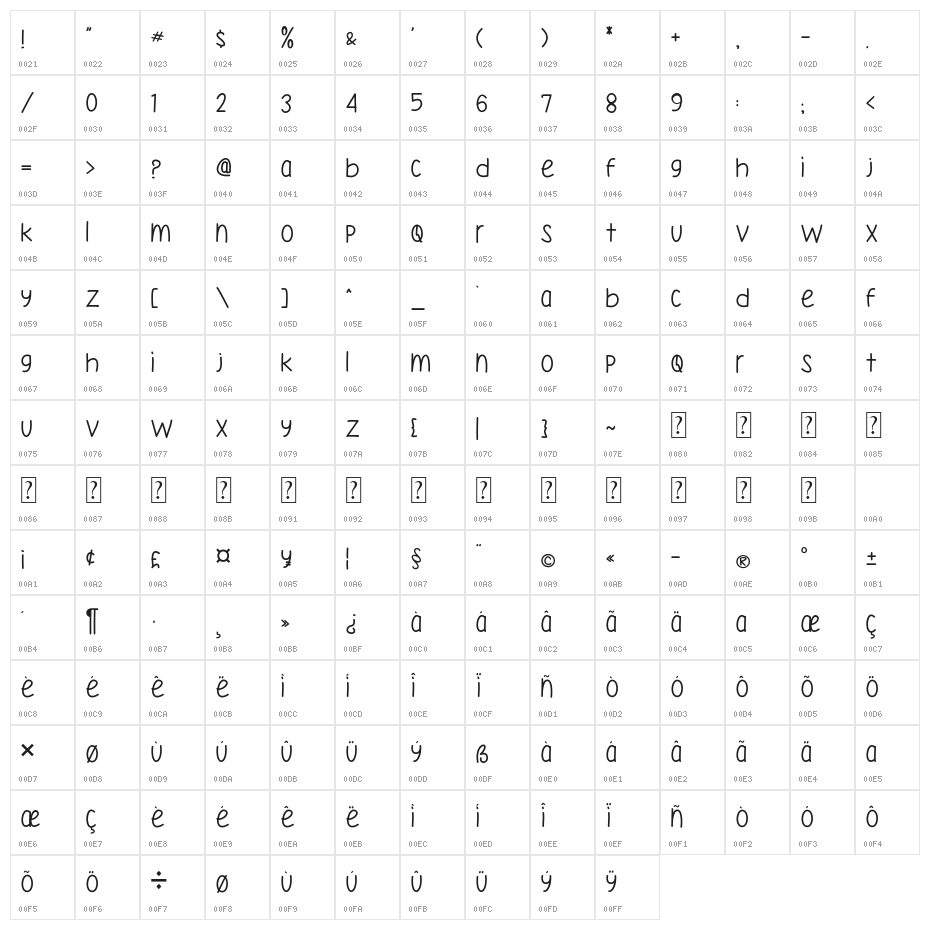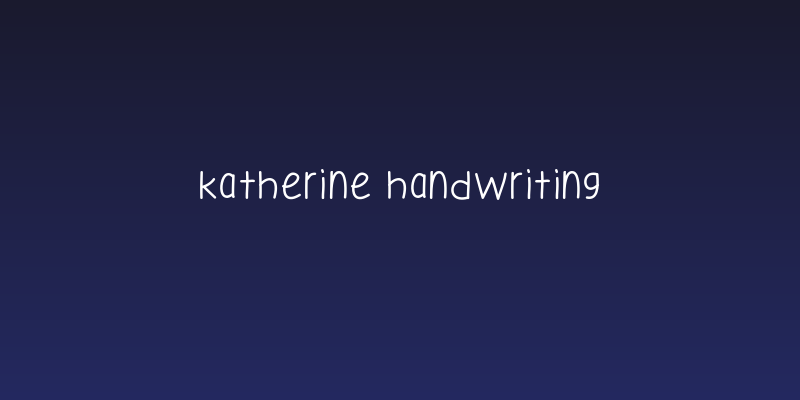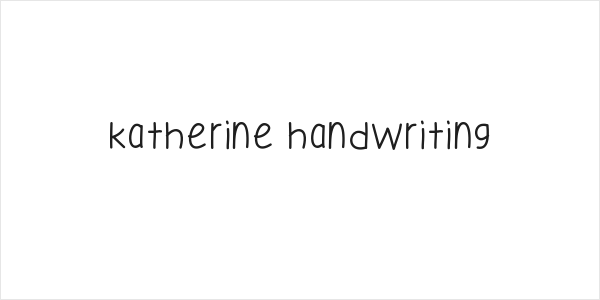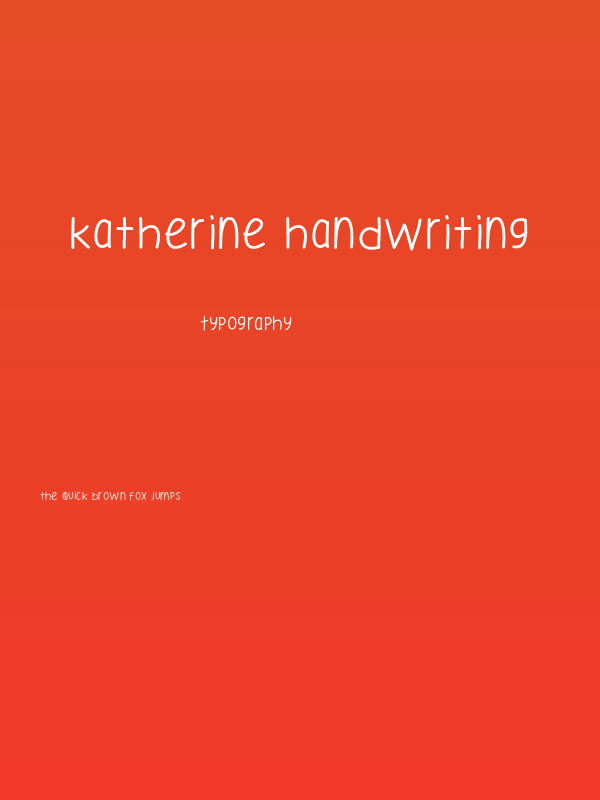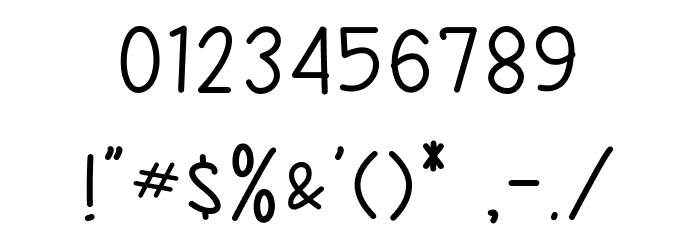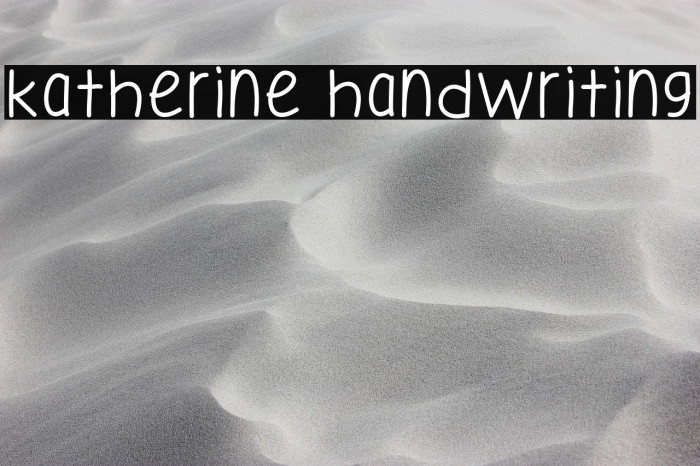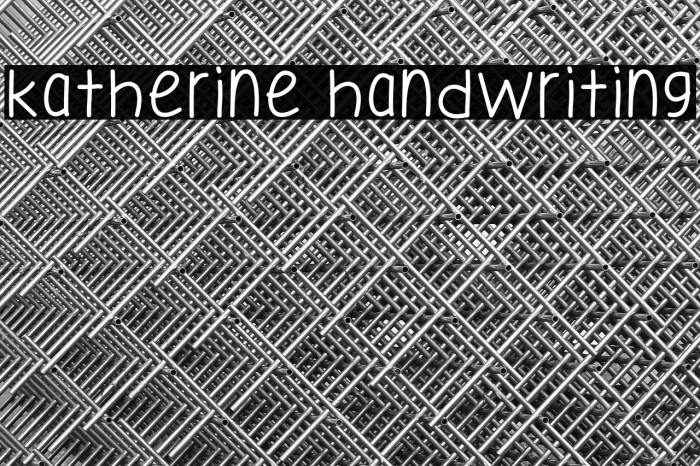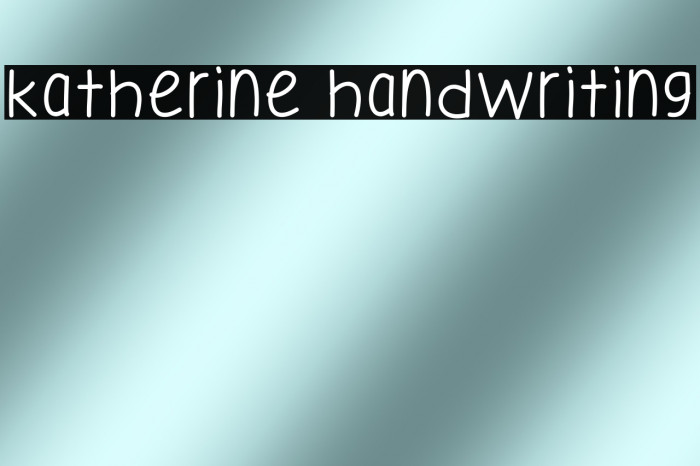
Katherine Handwriting Font
Katherine Handwriting Description
This font features a playful and casual handwritten style, characterized by its rounded and slightly irregular letterforms. The strokes are consistent in thickness, giving it a uniform appearance that enhances readability. The letters have a friendly and approachable feel, making it suitable for informal and creative projects. The numbers and special characters maintain the same whimsical style, ensuring a cohesive look across all text elements. Its simplicity and charm make it versatile for various design needs.
| Proposed Projects | Ideal for greeting cards, children's books, casual invitations, and playful branding. |